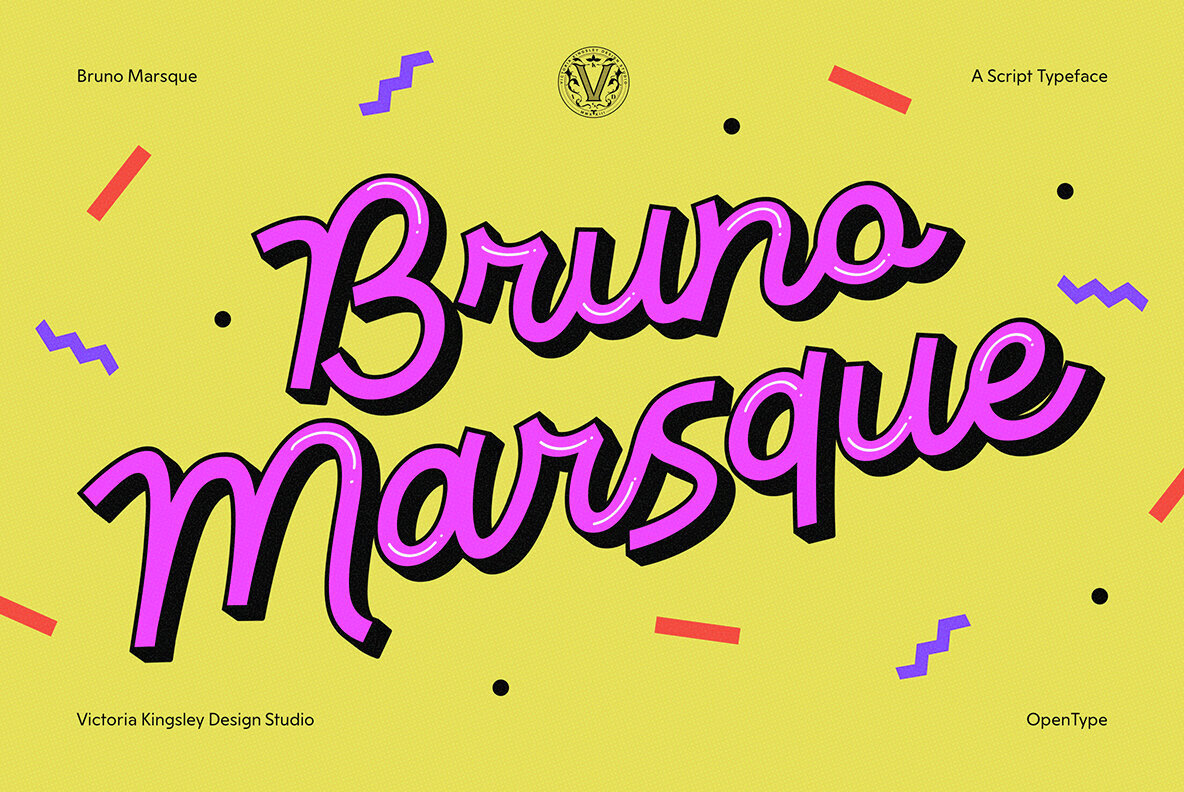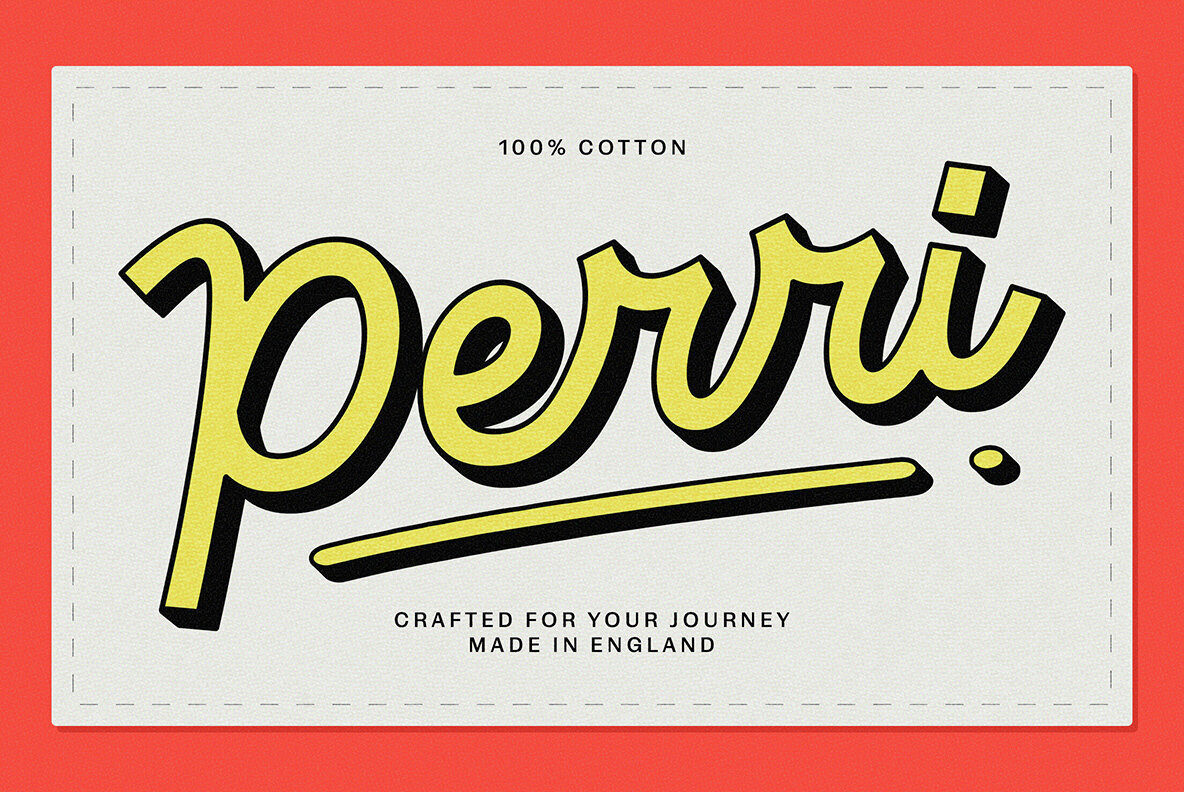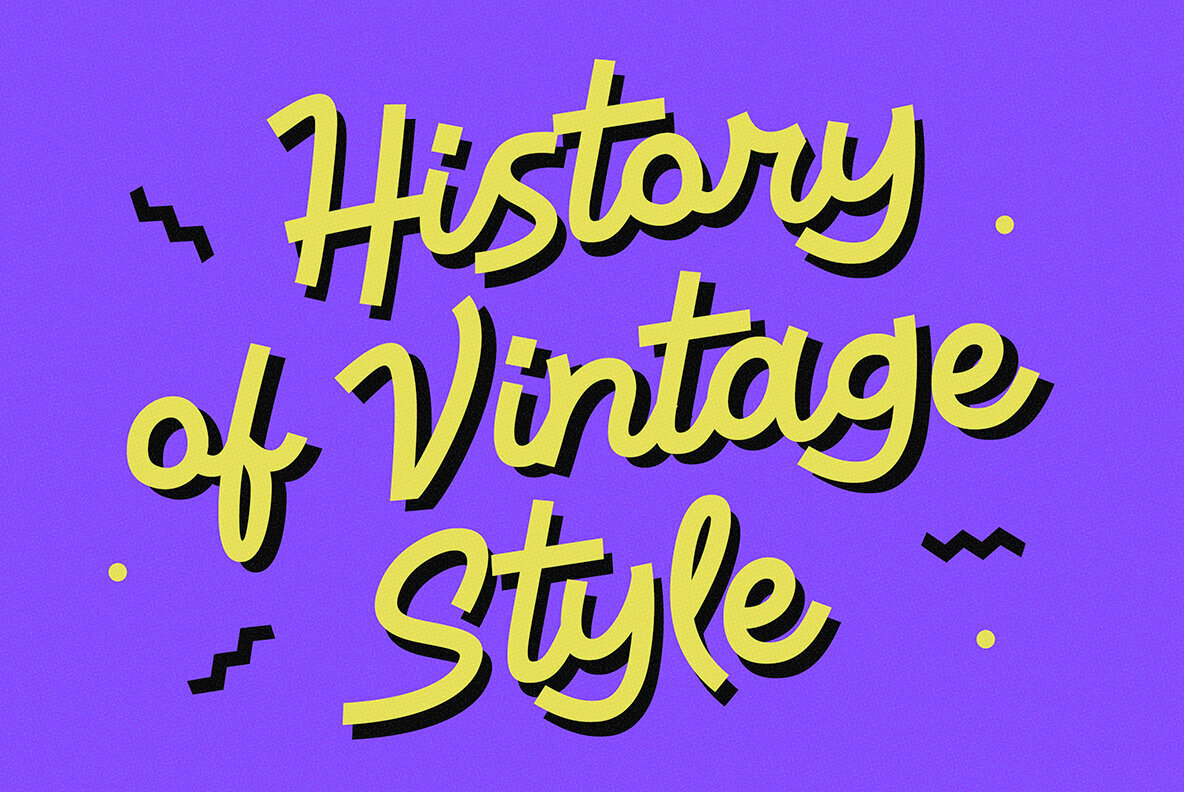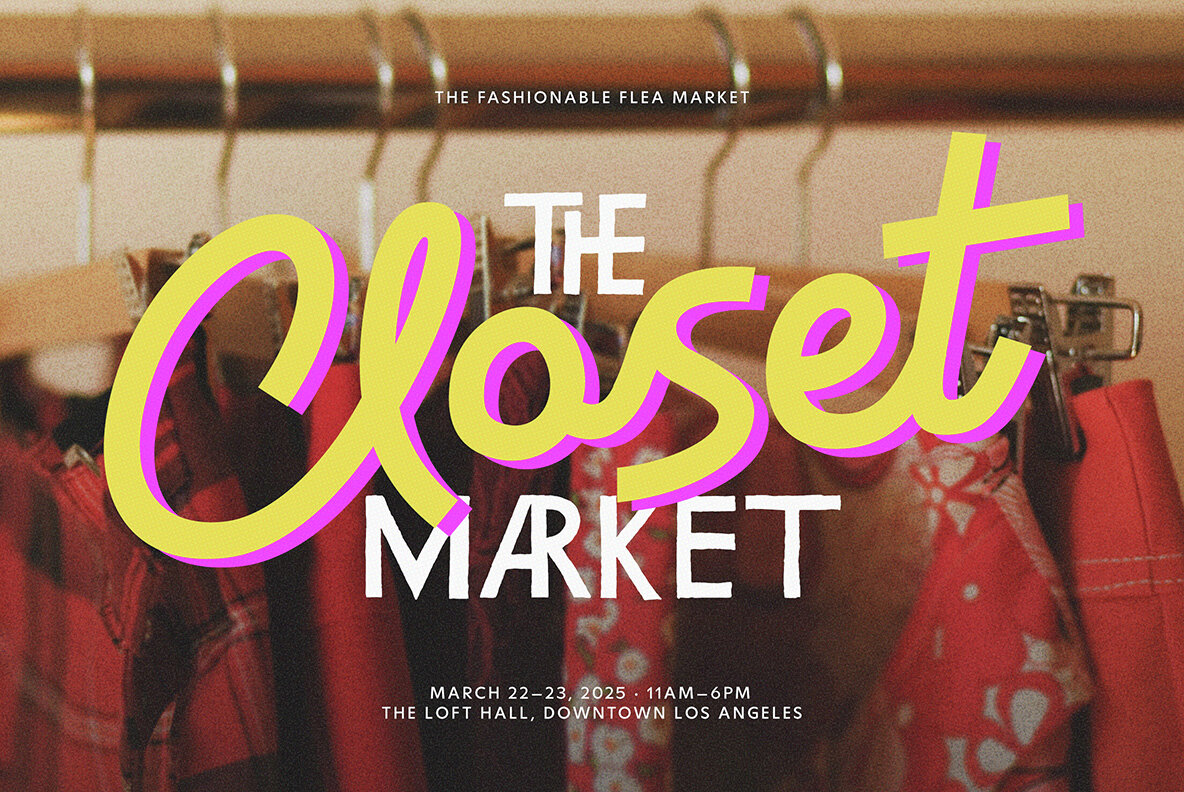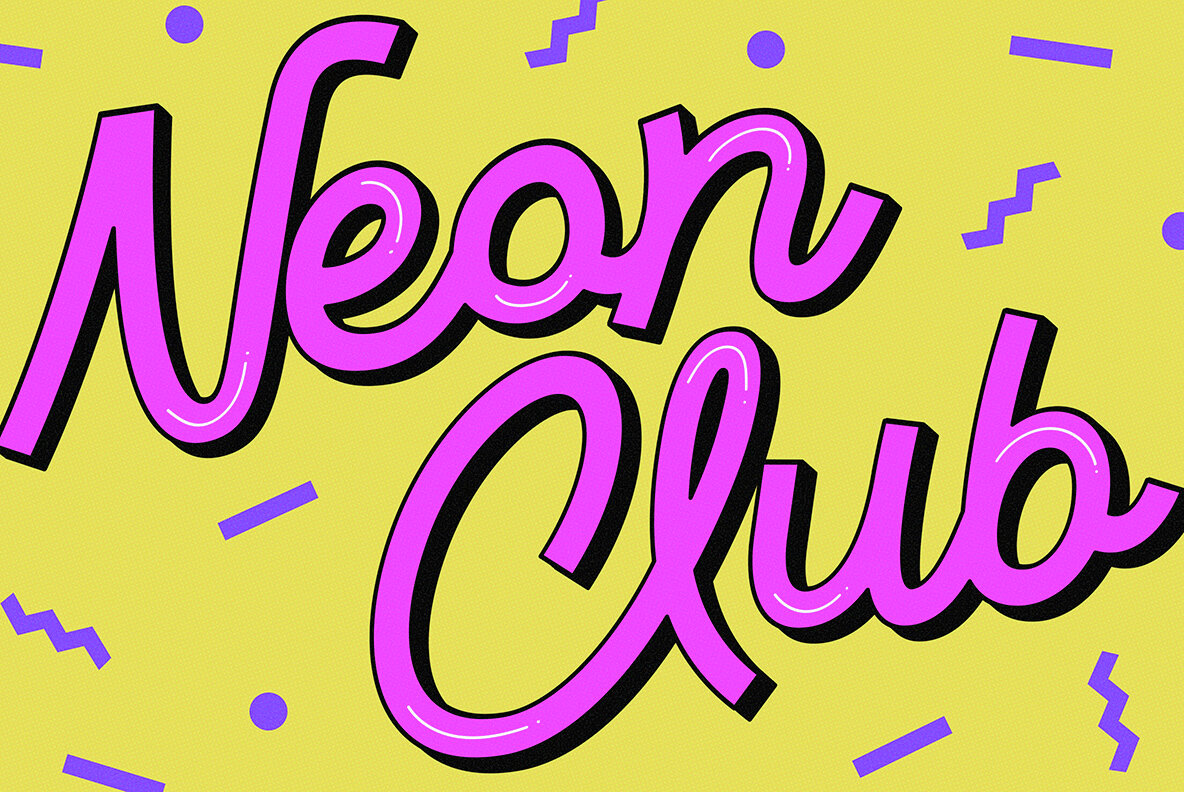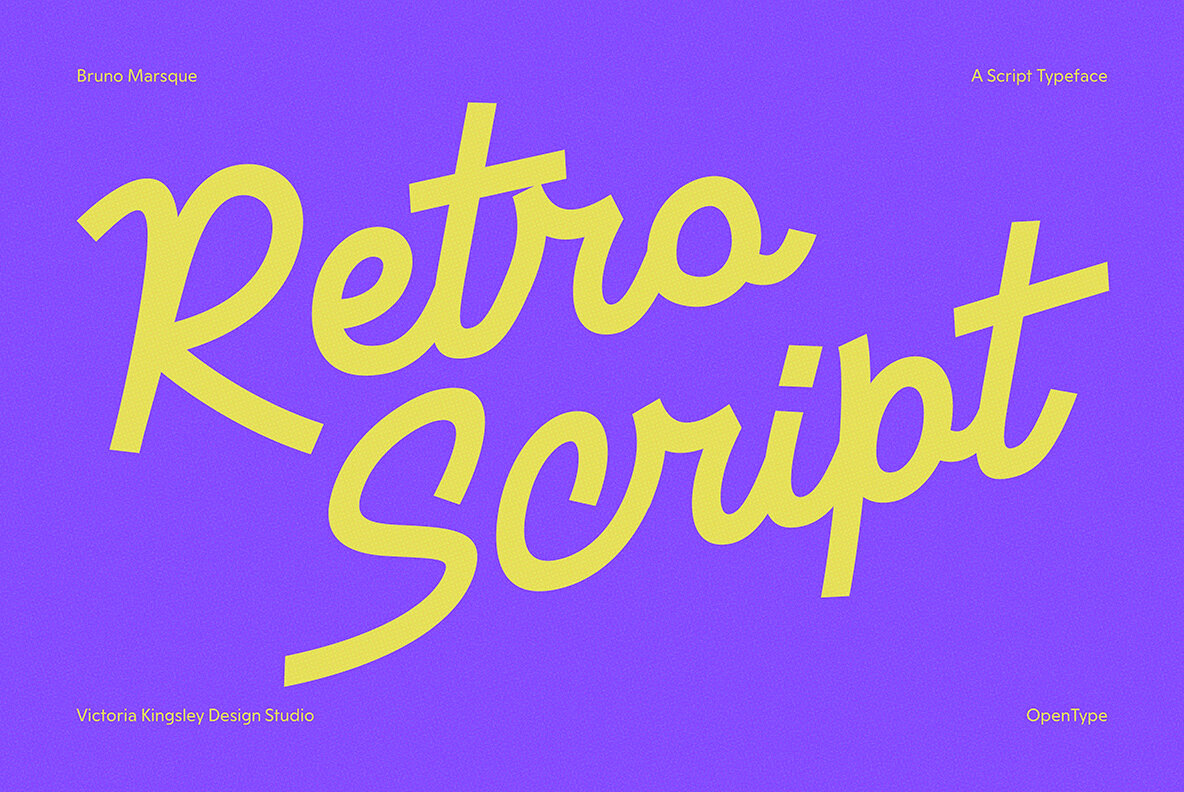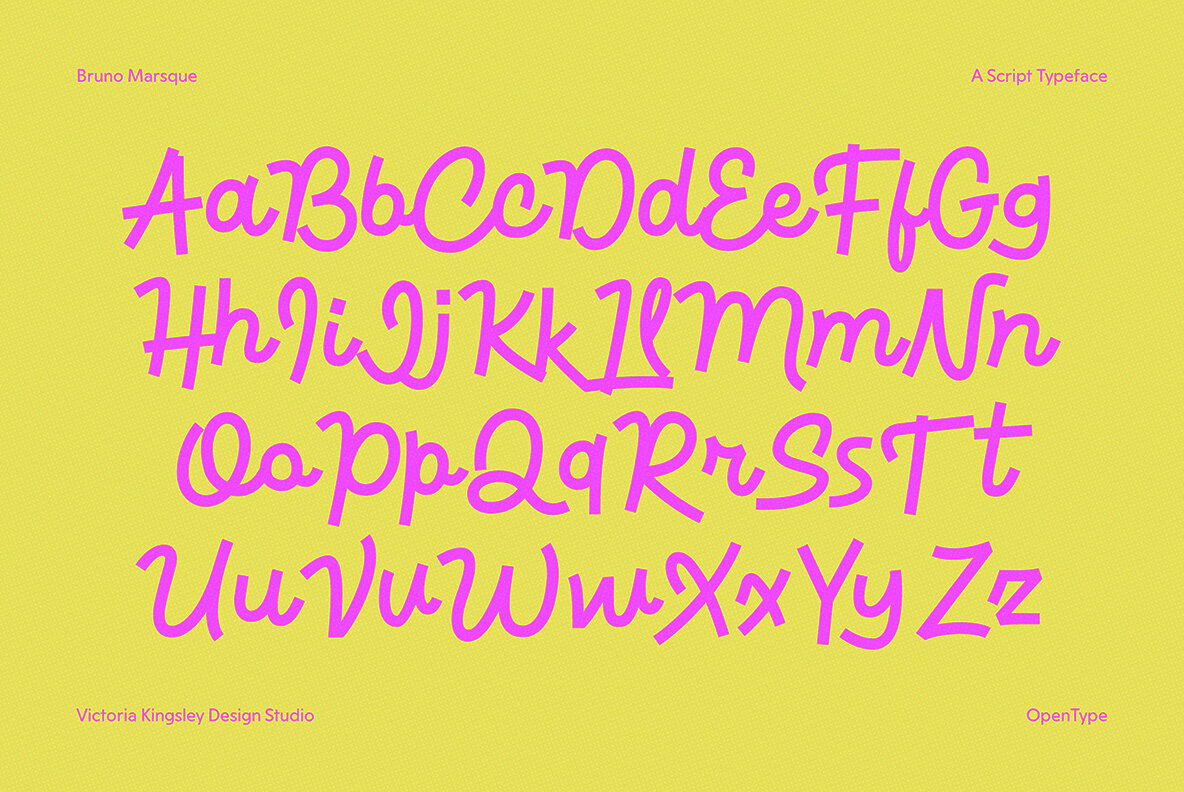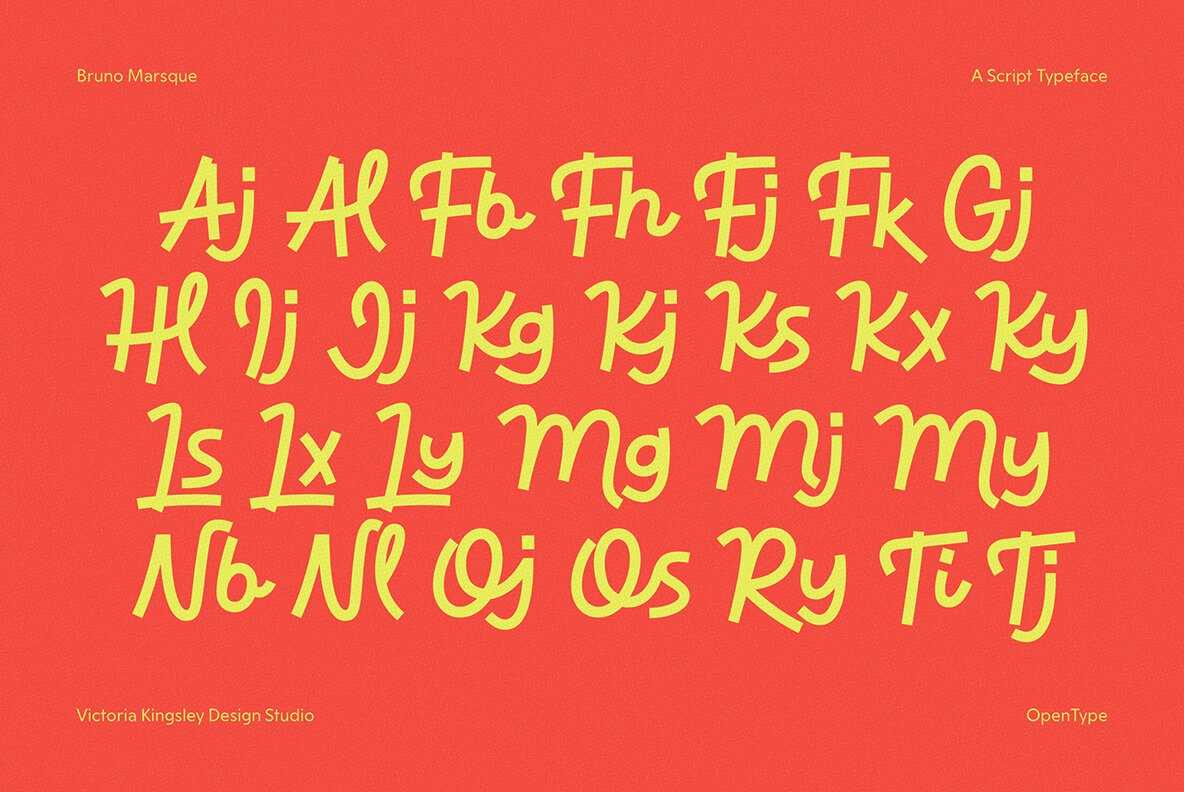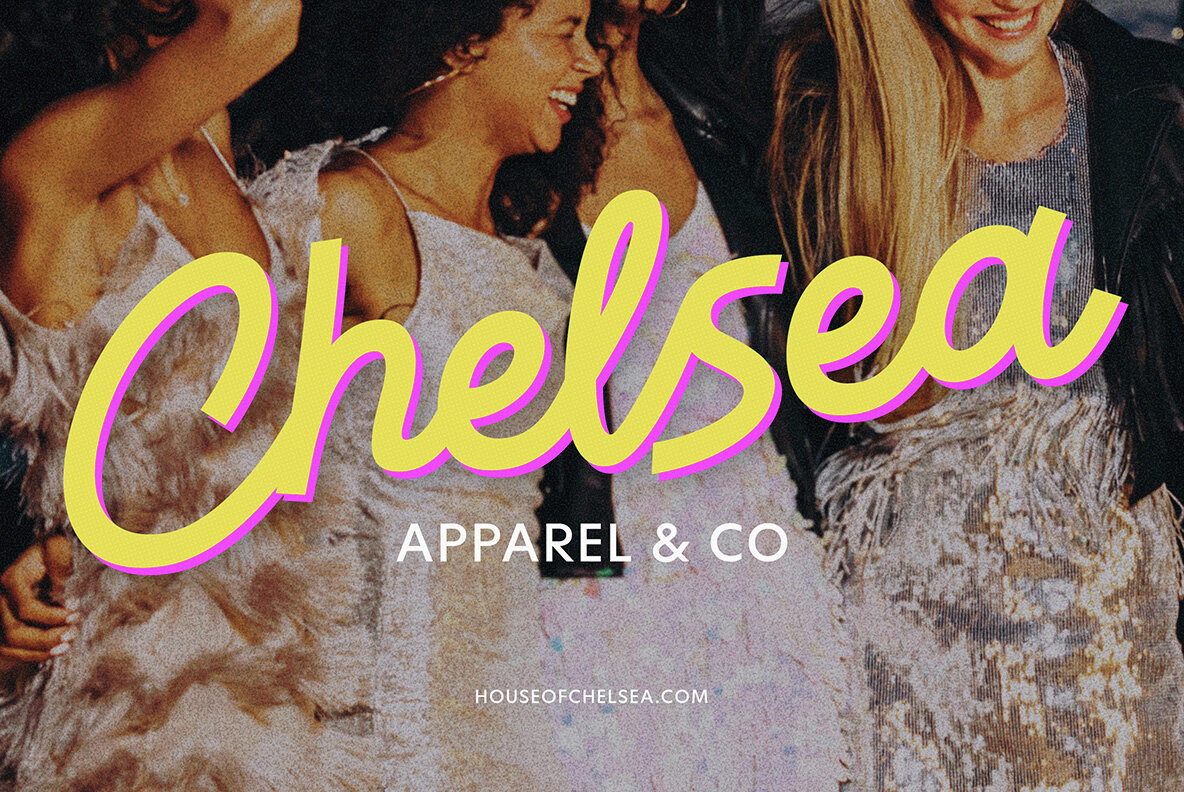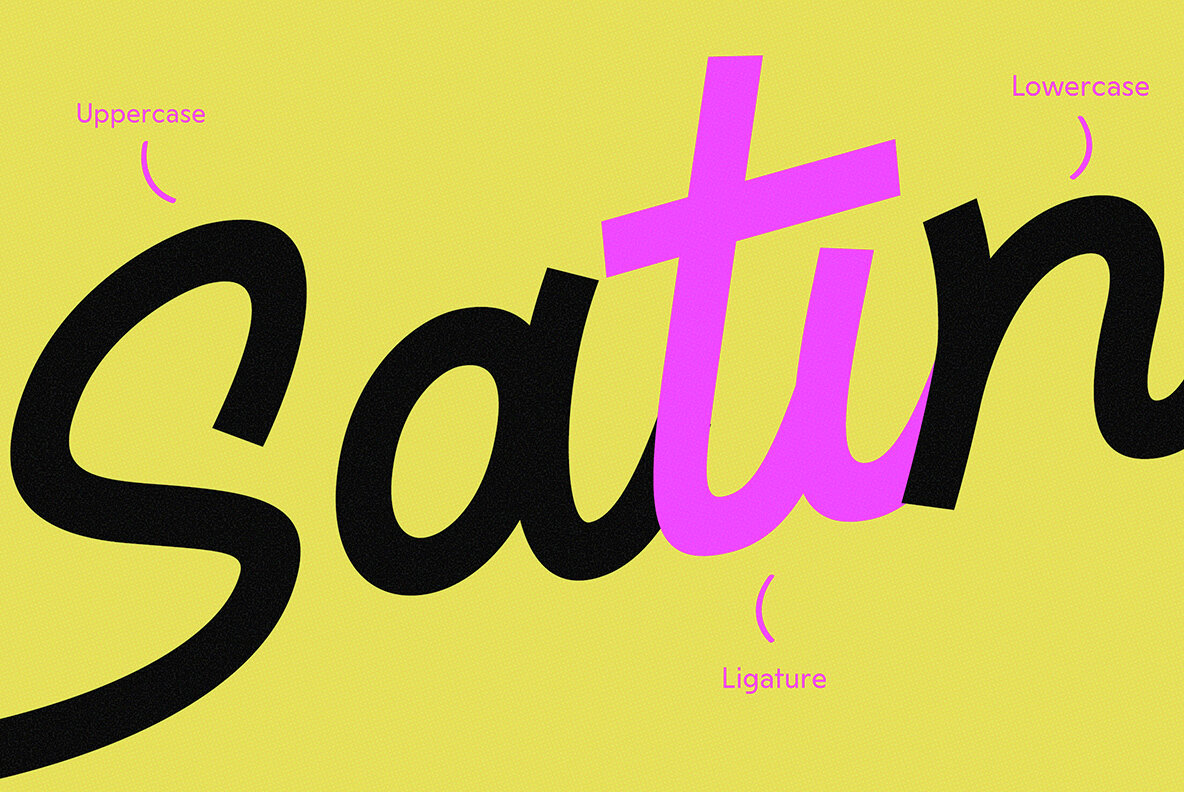
Bruno Marsque, crafted by Victoria Kingsley Design Studio exclusively for YouWorkForThem, embodies a vibrant blend of modern pop and retro aesthetics. This new script font exudes a youthful, musical spirit, making it an engaging choice for creative projects. The Bruno Marsque typeface, known for its playfulness and bold dynamics, features lively curves reminiscent of hand-lettered styles. With over 400 glyphs, it offers an expressive flow that expertly balances readability and flair, making it ideal for both digital and print applications. For those seeking a fresh alternative to standard script fonts, Bruno Marsque offers a unique rhythm and retro-inspired character that distinguishes it from traditional choices. Bruno Marsque includes several advanced OpenType features: These features ensure seamless letter connections and natural flowing text. Designed with contemporary needs in mind, Bruno Marsque performs beautifully on screens and prints, from posters to packaging. Its distinct style stands out amidst a sea of overused scripts, offering a truly unique design solution.Bruno Marsque: A Playful Script with Retro Charm
Prime Uses for Bruno Marsque
Features & OpenType Support
Perfect for Today's Design Landscape